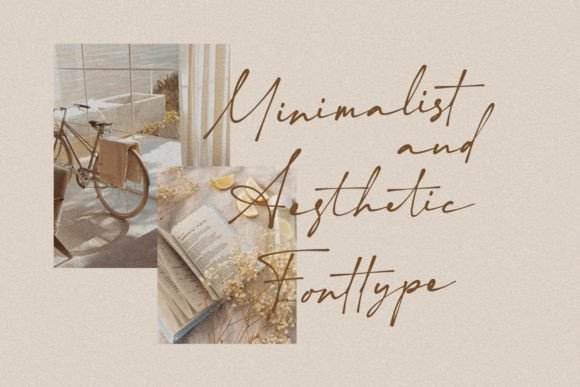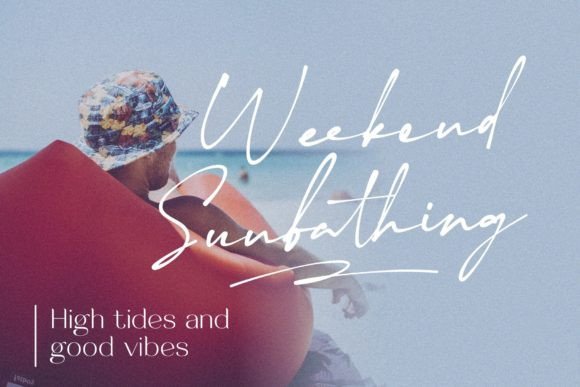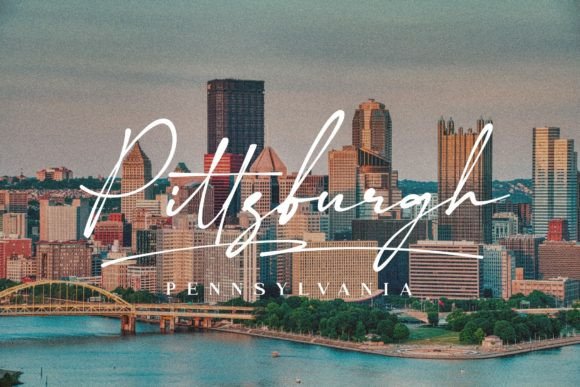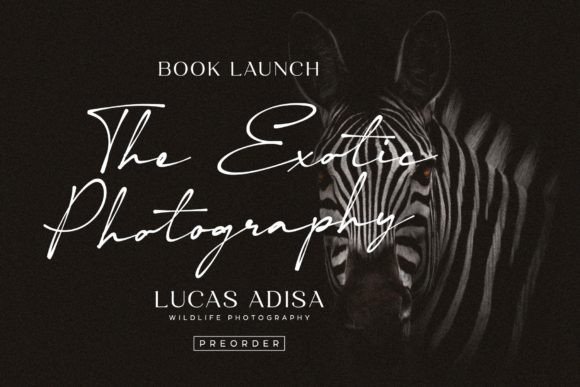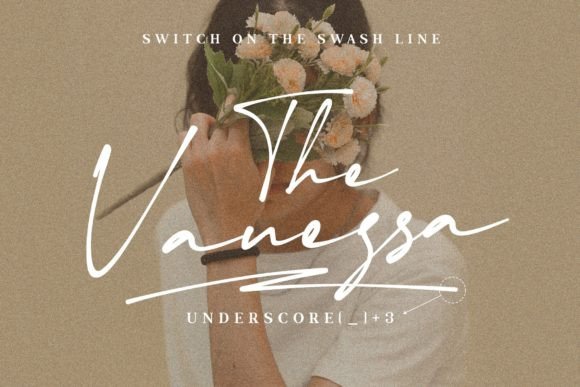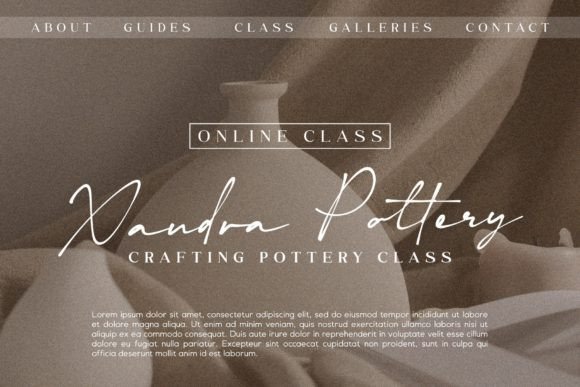
Introducing Diverting Font: Elevate Your Designs with Elegance and Sophistication
In the world of typography, a font can make or break a design. For designers and crafters looking to add a touch of class and modernity to their projects, Diverting Font is an exceptional choice. This stylish and aesthetically pleasing handwritten script font is perfect for creating stunning logos, branding materials, invitations, stationery, wedding designs, social media posts, and more.
The Characteristics of Diverting Font
Diverting Font boasts a classy, elegant, and modern look that sets it apart from other fonts. Its unique, flowing script style gives any design a sophisticated and refined feel, making it ideal for projects that require a high level of professionalism. Whether you’re working on a luxury brand’s logo or a wedding invitation, Diverting Font is sure to impress.
One of the standout features of Diverting Font is its PUA (Private Use Area) encoding. This means that users can easily access all the glyphs and swashes, allowing for greater flexibility and creativity in design. With PUA encoding, you can effortlessly navigate through the font’s extensive character set, including alternates, ligatures, and decorative swashes, to create truly unique and eye-catching designs.
The versatility of Diverting Font is one of its most significant advantages. This font can be used across a wide range of design applications, including:
- Logos and Branding: Create a lasting impression with a custom logo that exudes elegance and sophistication.
- Invitations and Stationery: Add a touch of luxury to your invitations, business cards, and letterheads.
- Wedding Designs: Make your wedding stationery, signage, and decor truly unforgettable with Diverting Font.
- Social Media Posts: Elevate your social media presence with stylish and engaging posts that showcase your brand’s personality.
Why Choose Diverting Font?
With so many fonts available, why choose Diverting Font? Here are just a few reasons:
- Unique and Modern Style: Diverting Font offers a fresh and contemporary look that will set your designs apart.
- Ease of Use: PUA encoding makes it easy to access and use the font’s extensive character set.
- High Versatility: Use Diverting Font across a wide range of design applications, from logos and branding to social media posts.
Tips for Using Diverting Font
To get the most out of Diverting Font, consider the following tips:
- Experiment with Swashes: Use the font’s decorative swashes to add flair to your designs.
- Mix and Match: Combine Diverting Font with other fonts to create a unique and visually appealing design.
- Pay Attention to Kerning: Adjust the kerning to ensure that your text looks polished and professional.
Diverting Font is an exceptional addition to any designer’s toolkit. Its elegant, modern look, combined with its PUA encoding and versatility, make it an excellent choice for a wide range of design applications. Whether you’re working on a luxury brand’s logo or a craft project, Diverting Font is sure to elevate your designs to the next level. So why wait? Discover the possibilities of Diverting Font today and take your designs to new heights!